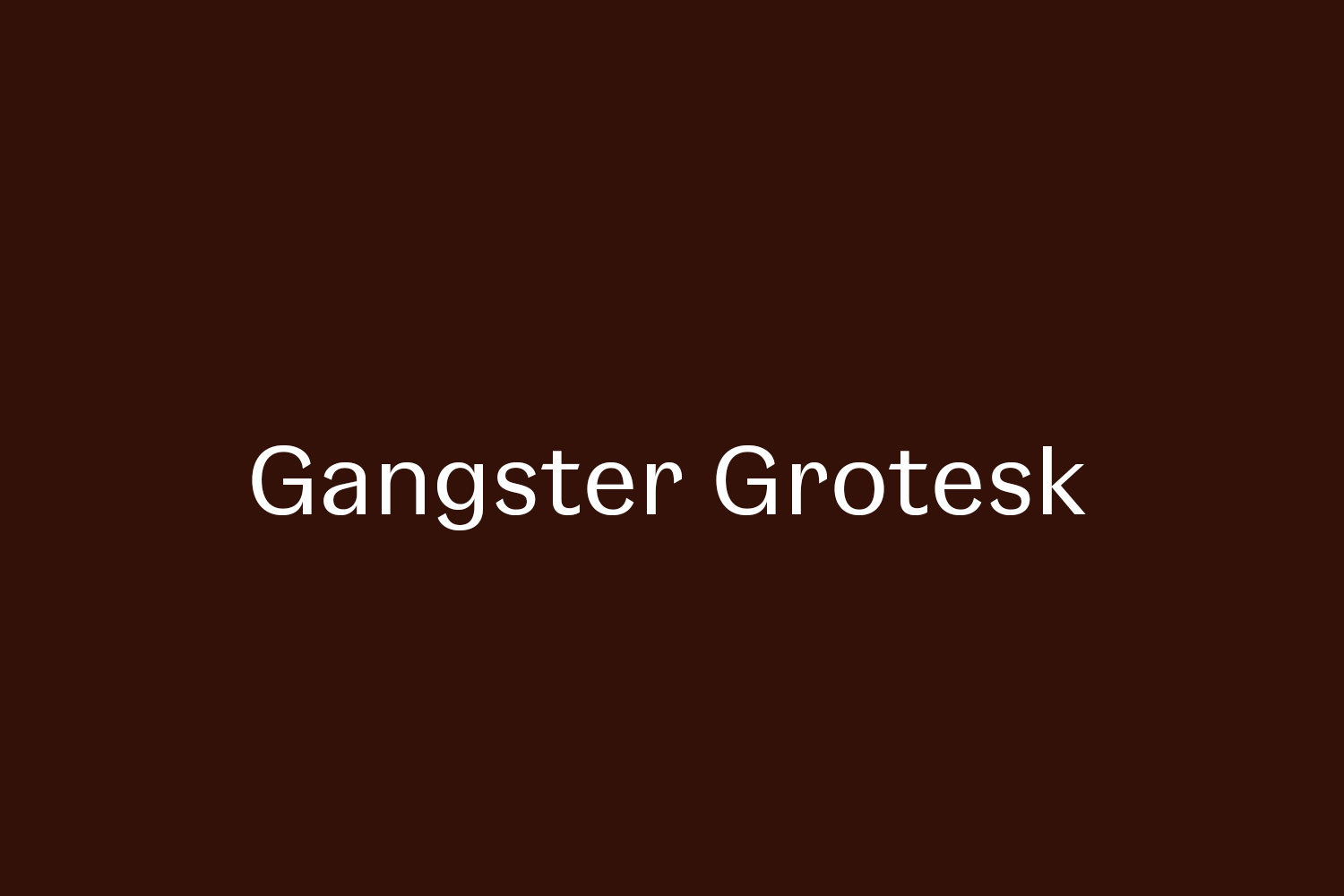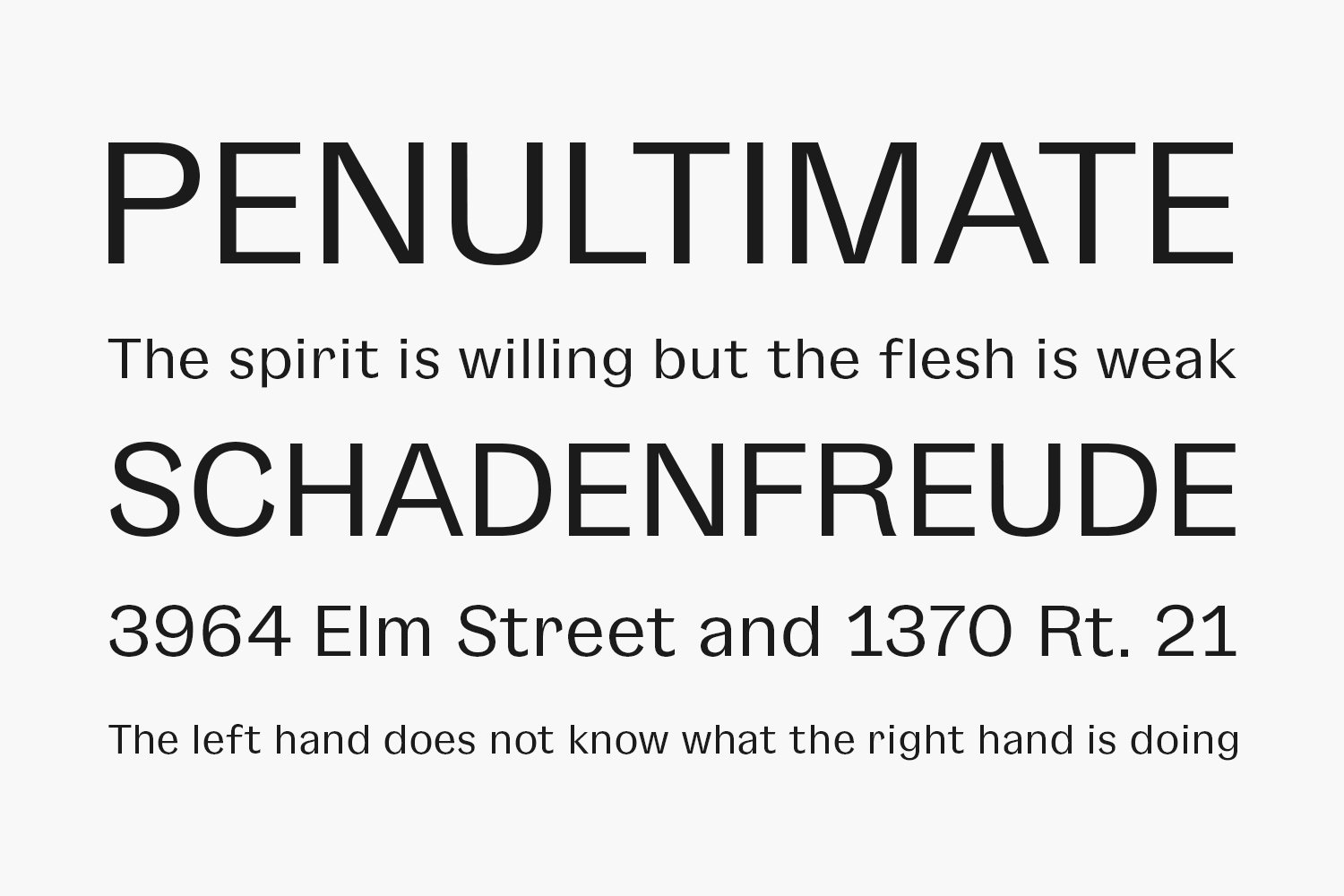
Nodding to its historical roots in the 1920s, Gangster Grotesk Free Font Family is a contemporary typeface that combines a sharp contrast with angled terminal strokes that curve inward ever so slightly. These elements are simple but effective, lending the typeface character while being practically invisible at small sizes.
A brave alternative to homogenized grotesks, it’s a multifunctional workhorse designed to do wonders both in print and on screen, including for logo design, brand identities, websites, packaging, posters and headlines. Its slightly condensed width is carefully tuned for small sized body text as well.